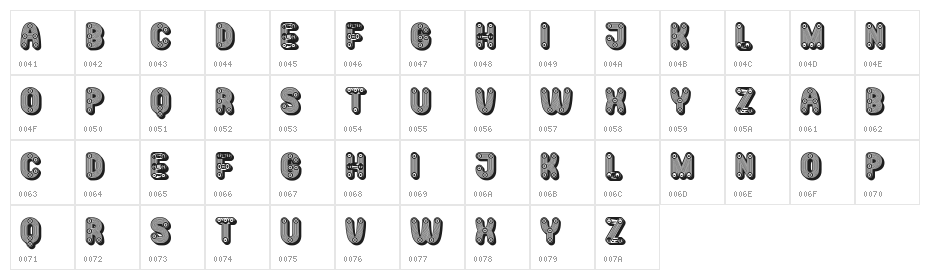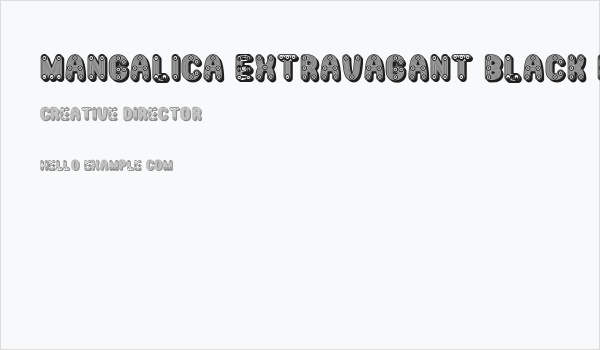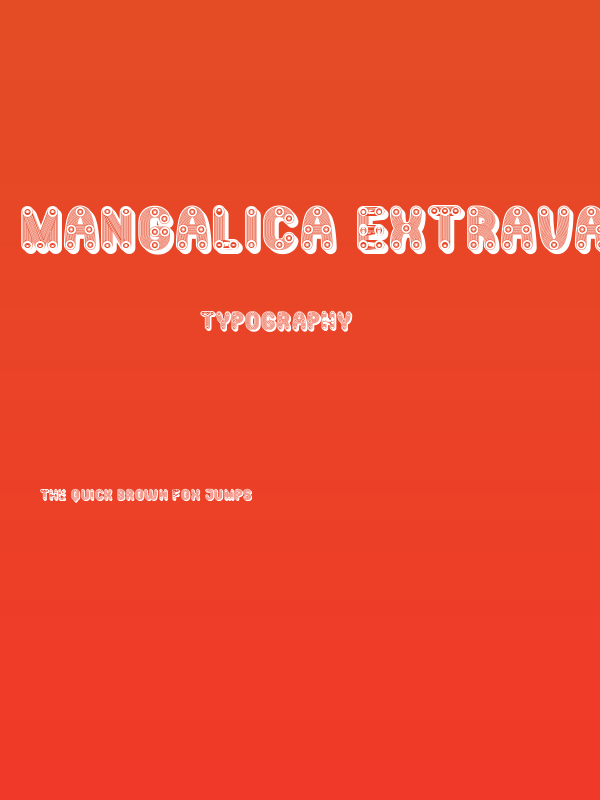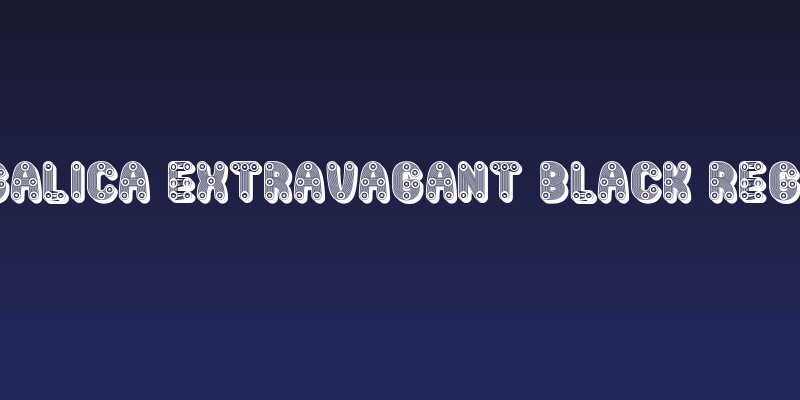
Mangalica Extravagant Black Regular Font
Mangalica Extravagant Black Regular Description
This font features a bold and extravagant design with a mechanical and industrial aesthetic. Each character is adorned with intricate patterns and textures, resembling gears and machinery components. The letters have a three-dimensional appearance, with shading and highlights that add depth and complexity. The style is highly decorative, making it suitable for projects that require a strong visual impact. The font's unique design elements create a sense of movement and dynamism, making it ideal for creative and artistic applications.
| Proposed Projects | Ideal for posters, album covers, video game titles, and any project needing a bold, industrial look. |